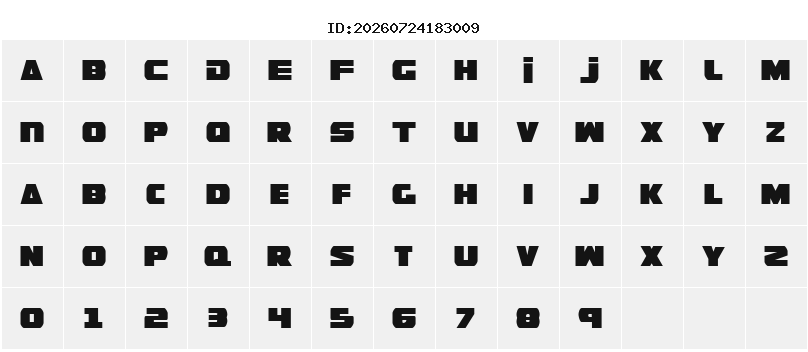
• Font Name: Guardian Condensed
• Font Style: Condensed
• Full Font Name: Guardian Condensed
• Designer: Dan Zadorozny
About Guardian Condensed.ttf
Guardian Condensed.ttf is a modern, elegant sans-serif font designed for ultimate readability and visual harmony. Perfect for branding, headlines, web design, and print materials.